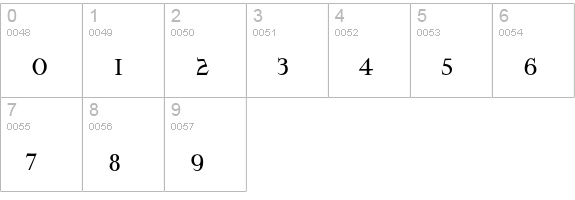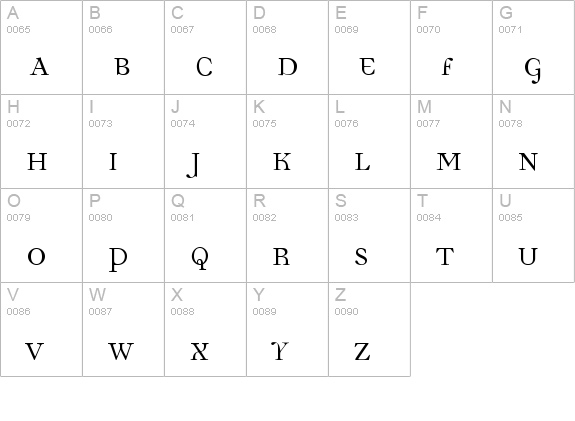
DemocraticaRegularLining Font Details
DemocraticaRegularLining font is a modern and versatile typeface that exudes elegance and sophistication. With its clean lines and balanced proportions, this font is perfect for a wide range of design projects, from branding to editorial design. The clarity and legibility of DemocraticaRegularLining make it ideal for both print and digital applications. This font is available for free download at FontsMarket.com, making it easily accessible to designers and creatives looking to add a touch of refinement to their work. Whether you're working on a logo, website, or printed materials, DemocraticaRegularLining is sure to make a bold statement while maintaining a sense of professionalism. Don't miss out on the opportunity to enhance your designs with this exquisite font. Download DemocraticaRegularLining today and elevate your projects to the next level.